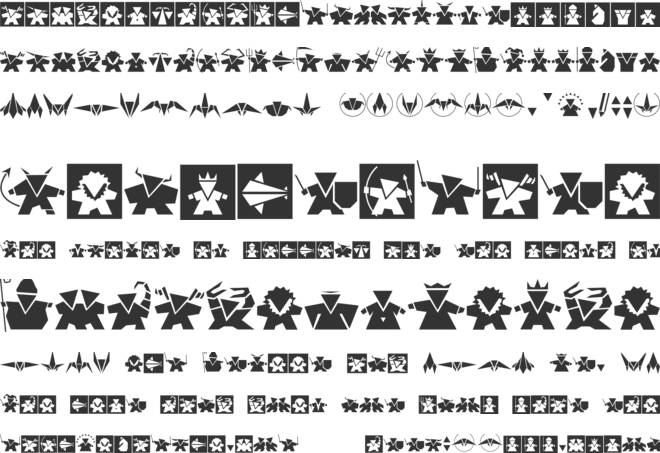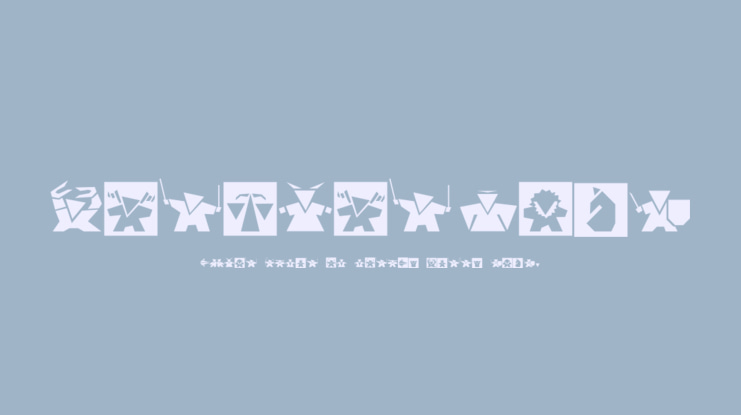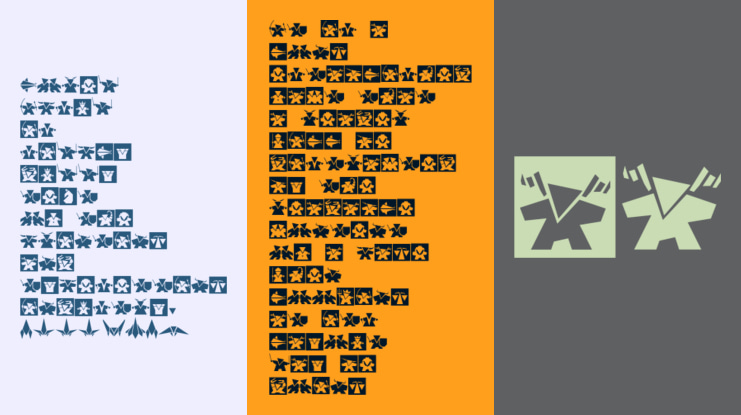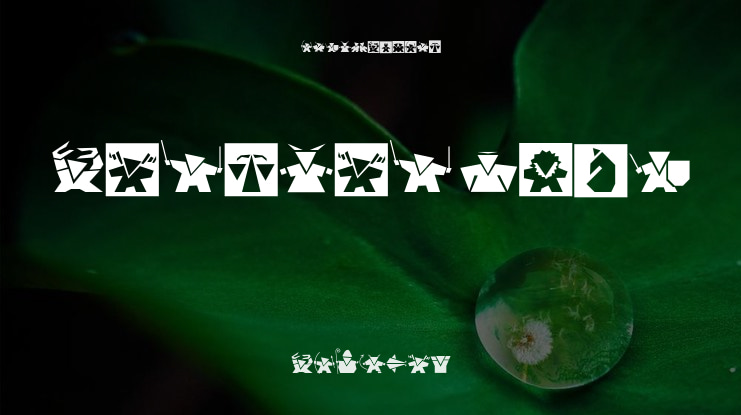
Damgram-Next Font
Ekkehard Beck
The font is an update of the "damgram" font uploaded in 2012All characters have been completely renewed and set on a square base. The font now has 112 characters and mainly includes:Zodiac signsChessCombat